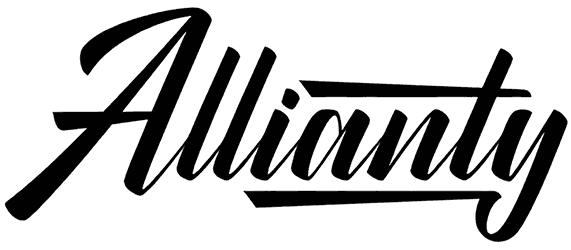
Allianty Font
Allianty font is a delightful combination of flair that brings a sense of minimal aesthetics to any design project. With its smooth curves and delicate flourishes, this script font can add a sense of old nostalgia to a wedding invitation, book cover, or logo of a luxury brand.
This handwritten font’s neat lines and curves are artwork in their own right, carefully crafted to evoke a seamless flow of timelessness. So go ahead and use this powerful tool to promote your message.